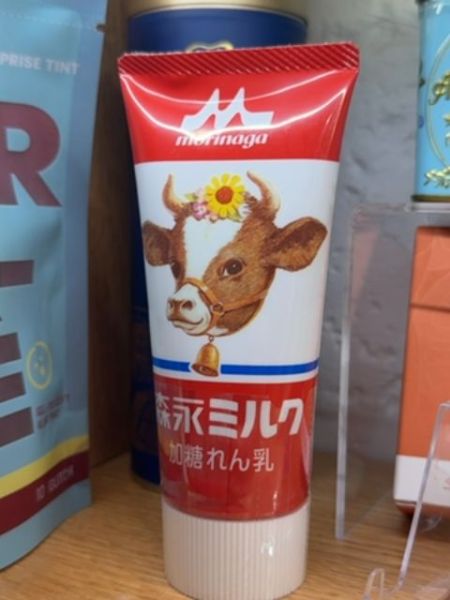
Morinaga Condensed Milk
A sweetened condensed milk used for various culinary applications including desserts and beverages.
The typography combines both kanji and katakana characters, utilizing a bold sans-serif font that conveys a sense of modernity and clarity. The white text on the red background provides high contrast, ensuring readability, and the rounded typeface adds a welcoming, friendly feel to the product.
The packaging is a vibrant red and white squeezable tube with a playful cow illustration, accessorized with a flower and bell, enhancing its approachable and friendly appeal. The use of bright colors and clear imagery makes it eye-catching and easy to recognize on a store shelf.
- Popular ingredient in making desserts.
- Known for its rich, creamy sweetness.
- Easily recognizable with its cow mascot.